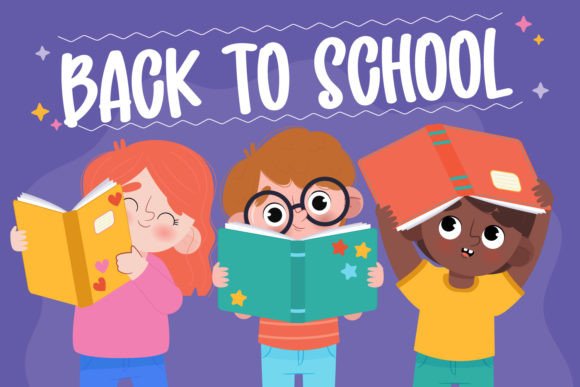
Dream Book Font: The Perfect Choice for Children’s Activities and School Projects
Are you looking for a font that embodies playfulness and authenticity for your children’s activity or school project? Look no further than the Dream Book Font. This fun, cute, and friendly display font is the perfect choice for any project aimed at kids. In this article, we’ll explore the features and benefits of the Dream Book Font and why it’s an excellent choice for your next project.
What is Dream Book Font?
Dream Book Font is a display font designed to capture the imagination of children. It’s a fun and playful font that features rounded edges and a friendly demeanor, making it perfect for kids’ activities, school projects, and even children’s book titles. The font is highly legible, even at small sizes, making it versatile for various applications.
Key Features of Dream Book Font
- Playful and Authentic: Dream Book Font embodies playfulness and authenticity, making it perfect for projects aimed at children.
- Rounded Edges: The font features rounded edges, giving it a friendly and approachable feel.
- Highly Legible: The font is highly legible, even at small sizes, making it suitable for various applications.
- Fun and Cute: Dream Book Font is a fun and cute display font that’s sure to capture the imagination of children.
Benefits of Using Dream Book Font
Using Dream Book Font for your children’s activity or school project offers several benefits. Firstly, it’s a great way to engage kids and make your project stand out. The font’s playful and authentic feel will immediately capture their attention and imagination. Secondly, the font is highly versatile and can be used for various applications, from children’s book titles to activity sheets and posters.
Why Choose Dream Book Font for Your Project?
There are several reasons why you should choose Dream Book Font for your project. Here are a few:
- Perfect for Kids: The font is specifically designed for kids, making it perfect for children’s activities and school projects.
- Easy to Read: The font is highly legible, even at small sizes, making it easy for kids to read.
- Fun and Engaging: The font’s playful and authentic feel will engage kids and make your project stand out.
- Versatile: The font can be used for various applications, from children’s book titles to activity sheets and posters.
How to Use Dream Book Font
Using Dream Book Font is easy. Here are a few tips:
- Choose the Right Size: Choose a size that’s easy for kids to read. You can use the font at small sizes, but make sure it’s still legible.
- Pair with Other Fonts: You can pair Dream Book Font with other fonts to create a unique look. Try pairing it with a sans-serif font for a fun and playful look.
- Use it for Headings: Use Dream Book Font for headings and titles to make your project stand out.
In conclusion, Dream Book Font is a fun, cute, and friendly display font that’s perfect for children’s activities and school projects. Its playful and authentic feel will engage kids and make your project stand out. With its highly legible design and versatile applications, Dream Book Font is an excellent choice for any project aimed at kids.
- What is Dream Book Font? Dream Book Font is a display font designed to capture the imagination of children.